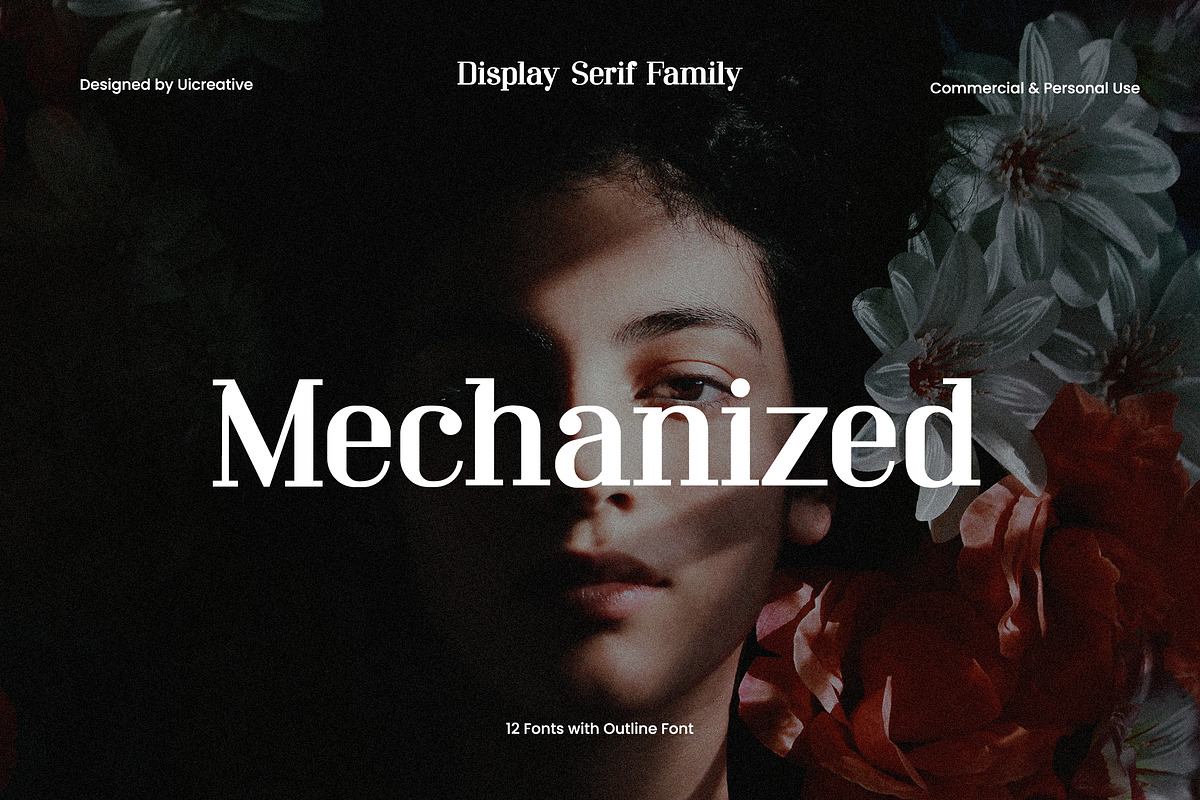
Mechanized Display Serif Font Free Download
Mechanized Display Serif Font Free Download is a bold, industrial-style typeface that fuses classic serif structure with futuristic, mechanical design elements. With its strong lines, sharp serifs, and tech-inspired vibe, this font is perfect for sci-fi themes, gaming titles, industrial branding, tech event posters, and edgy product packaging.
Crafted for maximum impact, Mechanized brings a commanding presence to headlines and display layouts while maintaining readability and style. It’s ideal for projects that need to balance tradition with innovation.